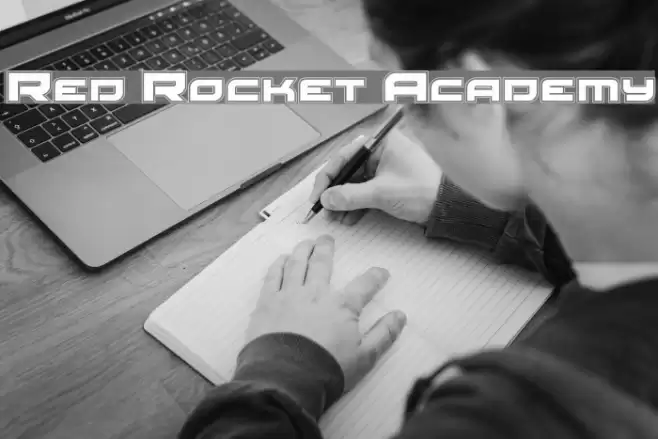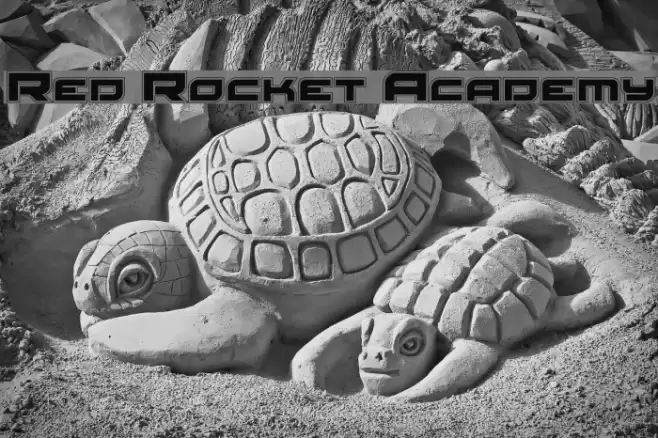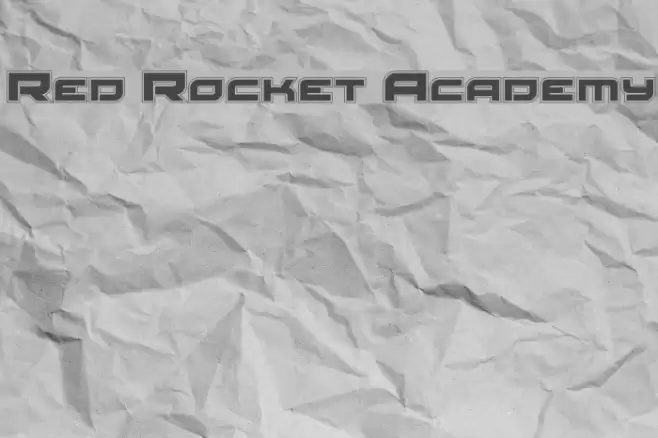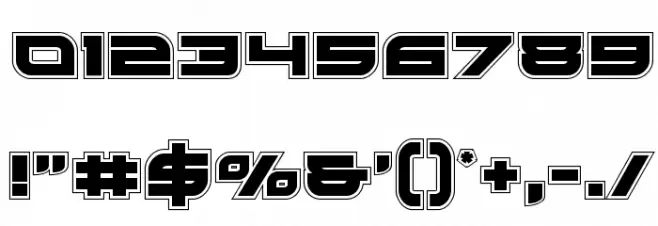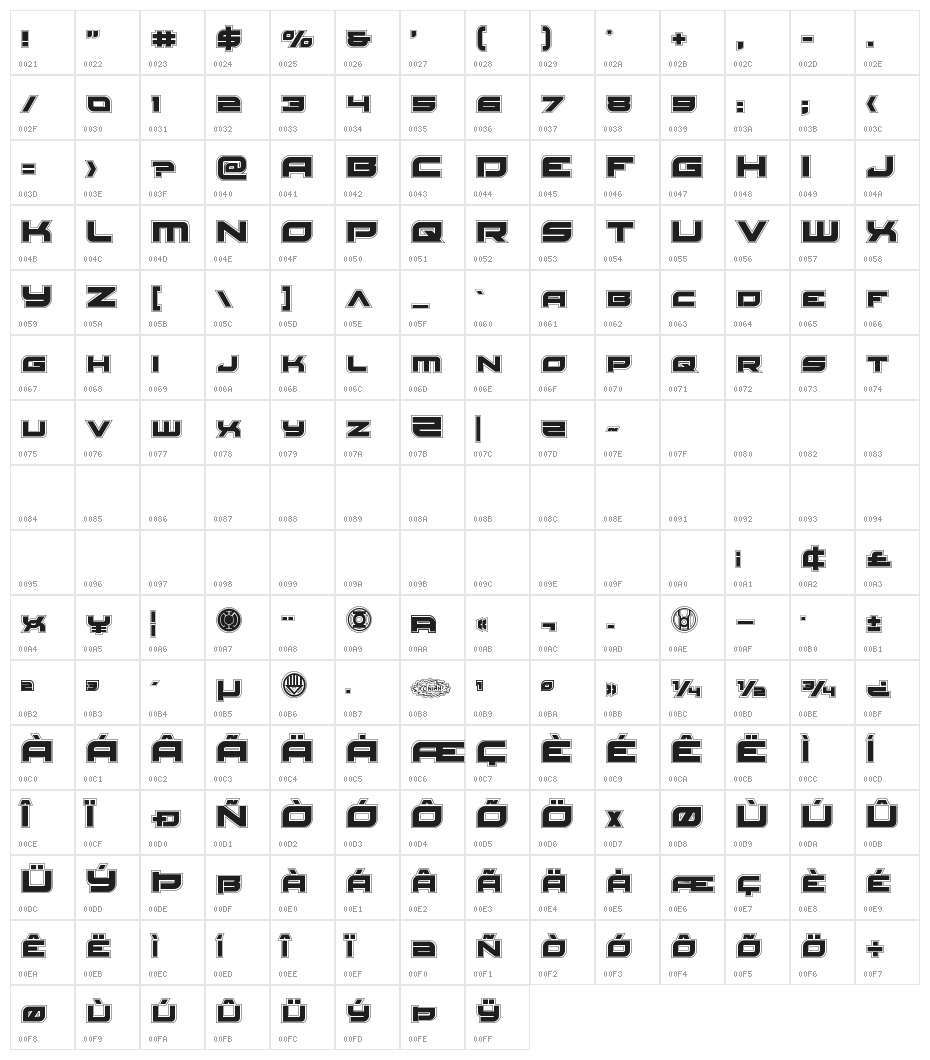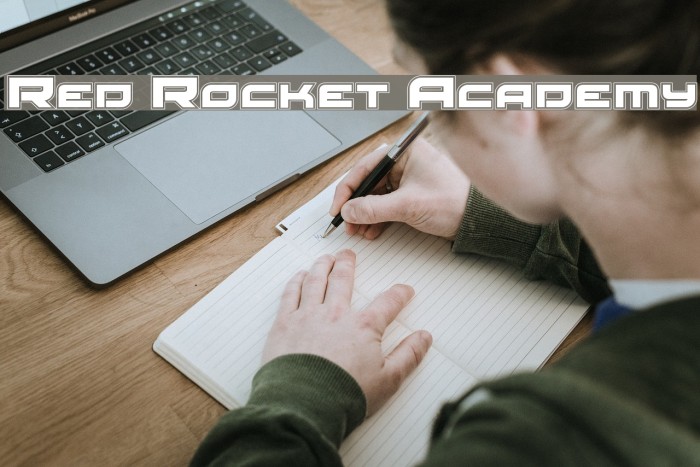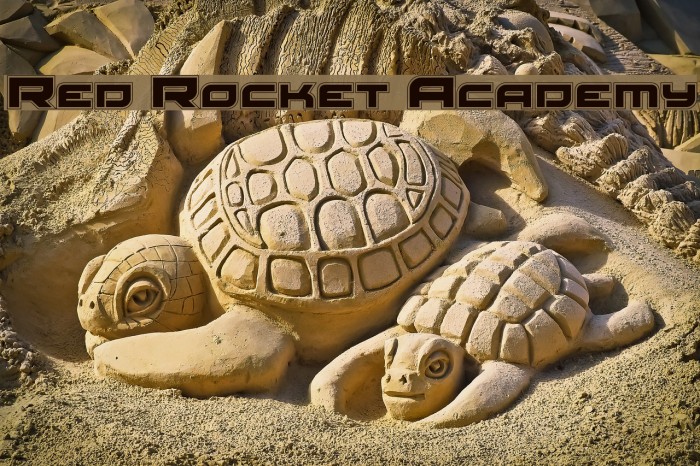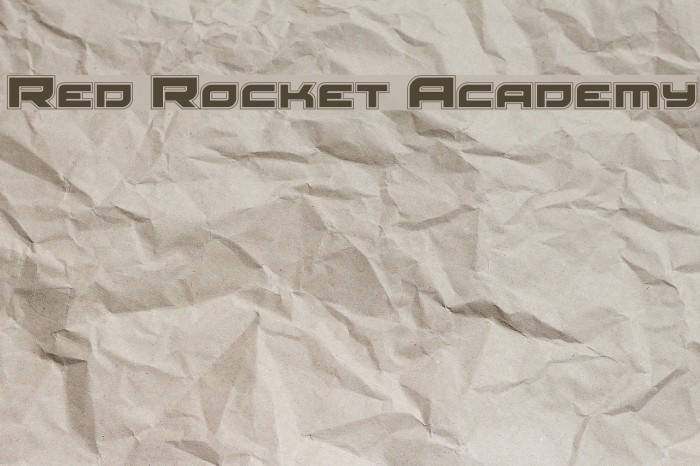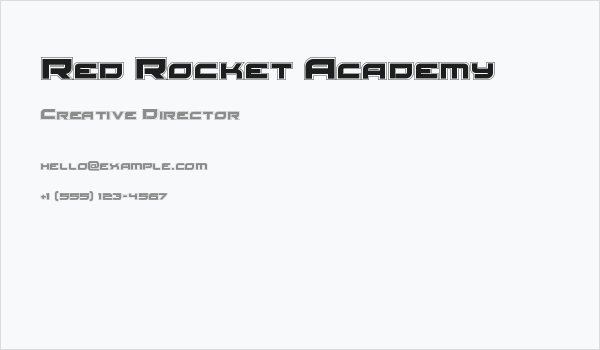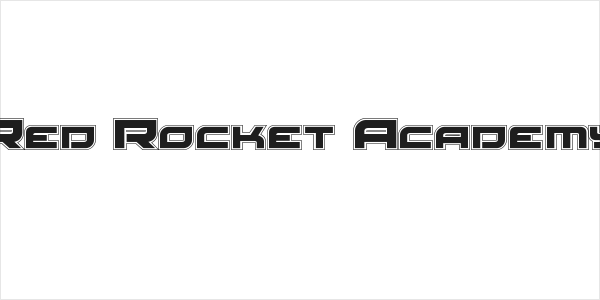
Red Rocket Academy Font
Red Rocket Academy Description
This font features a bold, futuristic design with a strong geometric structure. The characters are outlined with a thick border, giving them a three-dimensional appearance. The uppercase letters are uniform in height, while the lowercase letters maintain a consistent style, enhancing readability. The numerals are distinct and match the boldness of the alphabet, ensuring clarity in numerical displays. Special characters are included, maintaining the same bold and outlined style, making this font versatile for various uses.
A bold, futuristic font with geometric outlines and strong visual impact from Uncategorized fonts.
- Proposed Projects: Ideal for sci-fi themed projects, technology branding, video game titles, and modern posters.